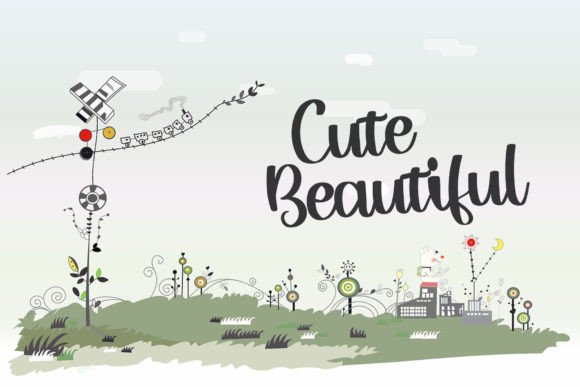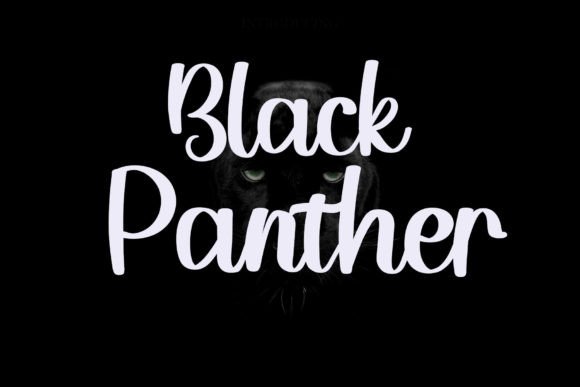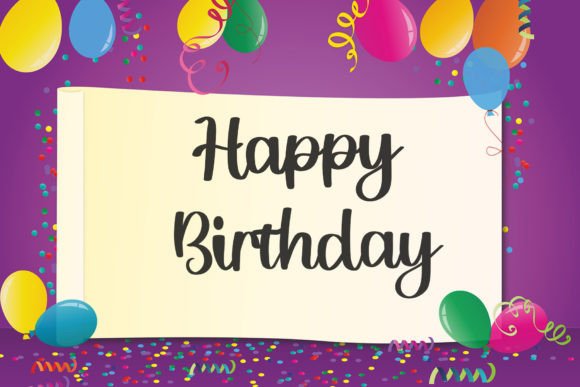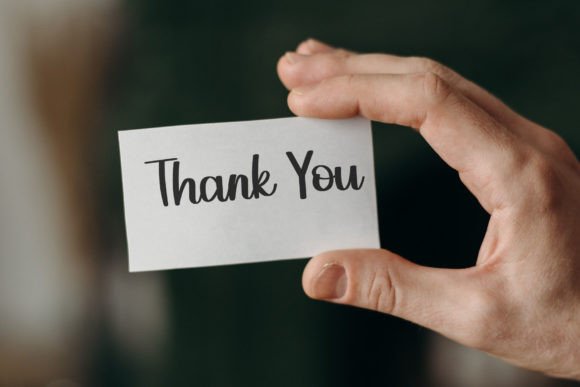
Ballerina Font: Add a Touch of Elegance to Your Design Projects
Ballerina is a sweet and beautiful handwritten font that is sure to add a luxury spark to any design project you wish to create. Featuring characters that dance along the baseline, this font is perfect for designers and crafters who want to add a touch of elegance and sophistication to their work.
What is Ballerina Font?
Ballerina font is a type of handwritten font that is designed to resemble the elegant and fluid movements of a ballerina. The font features characters that are carefully crafted to dance along the baseline, creating a sense of movement and fluidity. This unique design makes Ballerina font stand out from other fonts and adds a touch of whimsy and playfulness to any design project.
Characteristics of Ballerina Font
Ballerina font has several characteristics that make it a popular choice among designers and crafters. Some of its key features include:
- Handwritten style: Ballerina font has a beautiful handwritten style that is elegant and sophisticated.
- Dancing characters: The characters in Ballerina font are designed to dance along the baseline, creating a sense of movement and fluidity.
- Luxury feel: The font has a luxury feel that makes it perfect for high-end design projects.
- Versatile: Ballerina font is versatile and can be used for a variety of design projects, including logos, branding, packaging, and more.
Uses of Ballerina Font
Ballerina font is a versatile font that can be used for a variety of design projects. Some of the most popular uses of Ballerina font include:
- Logos and branding: Ballerina font is perfect for creating elegant and sophisticated logos and branding materials.
- Packaging design: The font can be used to create beautiful and eye-catching packaging designs.
- Stationery and cards: Ballerina font is great for creating elegant stationery and cards.
- Web design: The font can be used to create beautiful and elegant web designs.
Benefits of Using Ballerina Font
There are several benefits to using Ballerina font in your design projects. Some of the most significant advantages include:
- Unique and elegant design: Ballerina font has a unique and elegant design that will set your design projects apart from others.
- Easy to read: The font is easy to read, making it perfect for body text and other applications where readability is important.
- Versatile: Ballerina font is versatile and can be used for a variety of design projects.
- High-quality: The font is high-quality and will add a touch of sophistication to any design project.
Tips for Using Ballerina Font
Here are some tips for using Ballerina font in your design projects:
- Use it sparingly: Ballerina font is a elegant and sophisticated font, so use it sparingly to avoid overwhelming the design.
- Pair it with other fonts: The font can be paired with other fonts to create a unique and interesting design.
- Experiment with different colors: Ballerina font looks great in a variety of colors, so experiment with different colors to find the one that works best for your design.
Ballerina font is a beautiful and elegant handwritten font that is perfect for designers and crafters who want to add a touch of sophistication to their design projects. With its unique and elegant design, versatility, and high-quality, Ballerina font is a great choice for a variety of design projects. Whether you’re creating logos and branding materials, packaging designs, or web designs, Ballerina font is sure to add a luxury spark to your work.